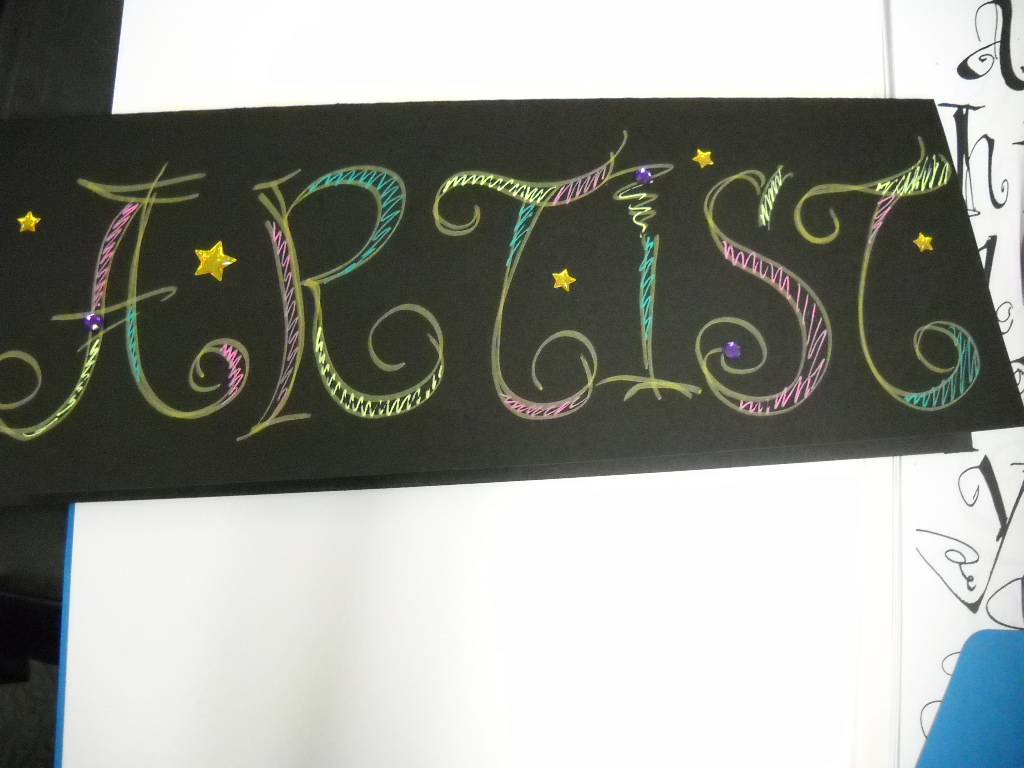
Intentions Plaques Class at Jenny Dohs!
here is My very first teaching gig if 2012
Intention Plaques & Sticks
with Lisa Engelbrecht
Join Lettering Artist Lisa Engelbrecht to create gorgeous lettered wooden plaques and lettered sticks. You might just need one word to get you started with the process of lettering onto wood ... like begin, create, dream ... or maybe you might need to a reminder of the artist you are ... maybe outlaw, provocateur, renegade, or rebel. In this class, where everyone can be a calligrapher, Lisa will teach you an easy beautiful free and loopy script which can be written with a pointed brush or a pointed pen. Using wood plaques and found sticks and twigs, we prime and color with gesso and acrylics. Students will write their words of intention and then create a unique wire hanger for the plaques or wrap the sticks with colorful fibers. Twine and ribbon wrappings may be included. To finish off the words, colored pencil scribbles will give bright fillings to the spaces in between the letters. Lively discussion of our current state of creativity will inspire us to make a several in one day!
There will be a LOT of fun and laughing!